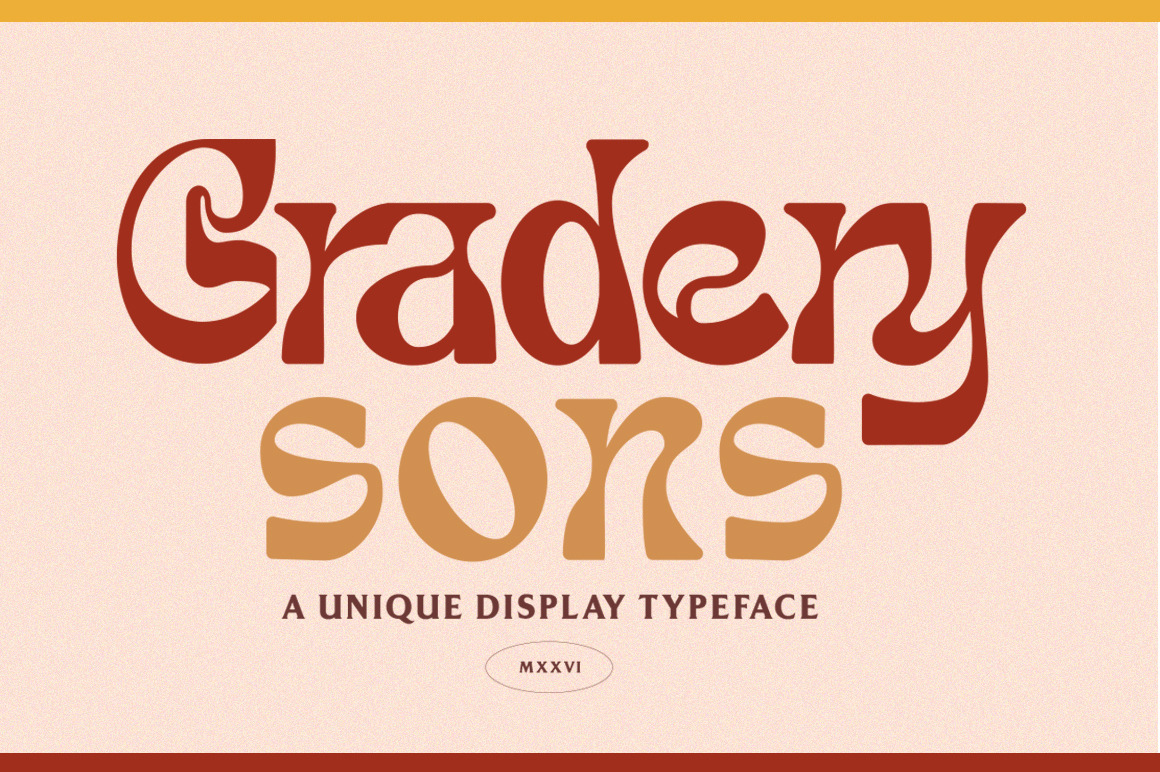
Gradery Sons - Display Font
Gradery Sons Typeface Inspired by the psychedelic style, we created a this typeface that you can use for all projects.
Gradery Sons is a stylish font It has both modern and retro look - clear, modern and fun. Perfect if you need a dose of fun in your project.
- Unique letterforms